LettError type services
LettError Type can modify and extend existing designs from our collection, or draw something completely new. I can work together with in-house design teams, agencies and design studios to develop fonts that fit the message and perform flawlessly in all situations.
Lettering
Letterforms used in a very specific context are called lettering. Think of logos, opening credits for movies, exhibitions, boat names, even tattoos. Such work always takes place in close collaboration with the design team.
Typographic Help
Sometimes you just need an extra pair of typographic eyes to assess an ongoing project. This can be a quick review of legibility, an appraisal of design coherence or a comprehensive webfont test before taking a site live. A critical eye at the right time can avert costly mistakes.
LettError has over 37 years experience with fonts, trademarks, open sourcing and contracts.
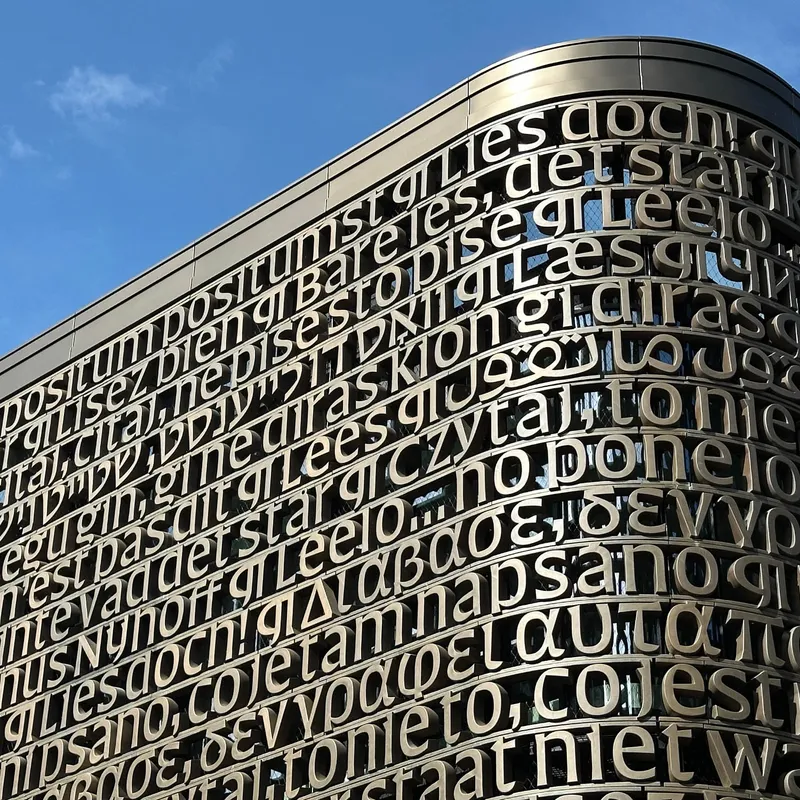
Lettering for the UvA Library
Lettering:
Architectural typography covering the front of the library building. Six different writing systems, over a kilometer of text.
Team: LettError, with Danilova (Cyrillic), Eslami (Arabic), Grumer (Hebrew), Samuļenkova (Greek).
Client: University of Amsterdam and MVSA Architects
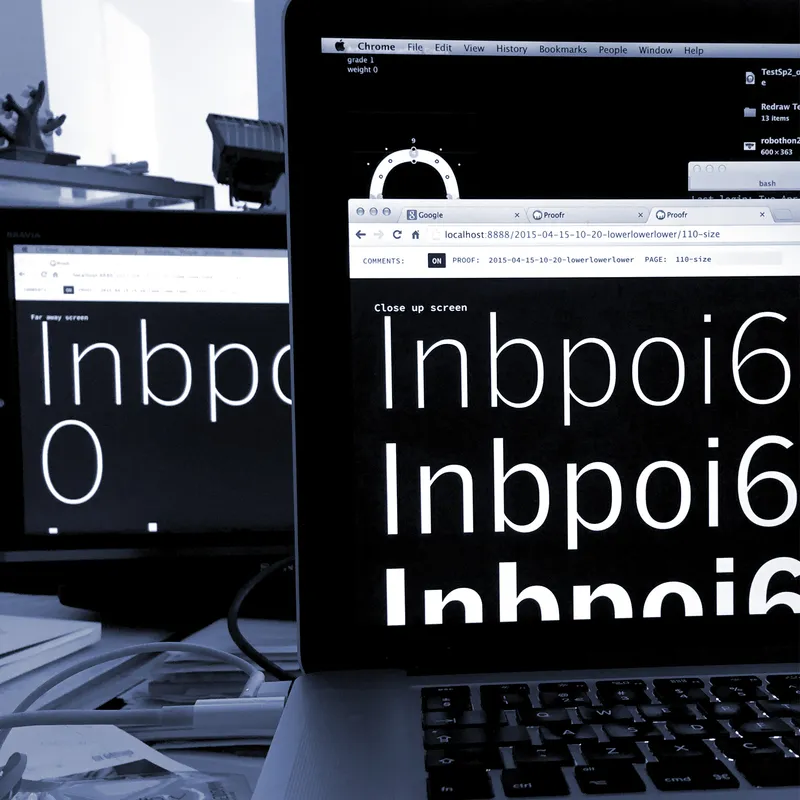
Street: a typeface for HBO
Custom typeface:
A compact grotesk, drawn for all screens. With support for extended Latin, Greek and Cyrillic.
Team: Carvalho Bernau, LettError (both for Latin), Irene Vlachou (Greek), Ilya Ruderman (Cyrillic)
Client: Home Box Office, Rob McMurray, James Catel, Ryan Wilkerson, Dave Curry
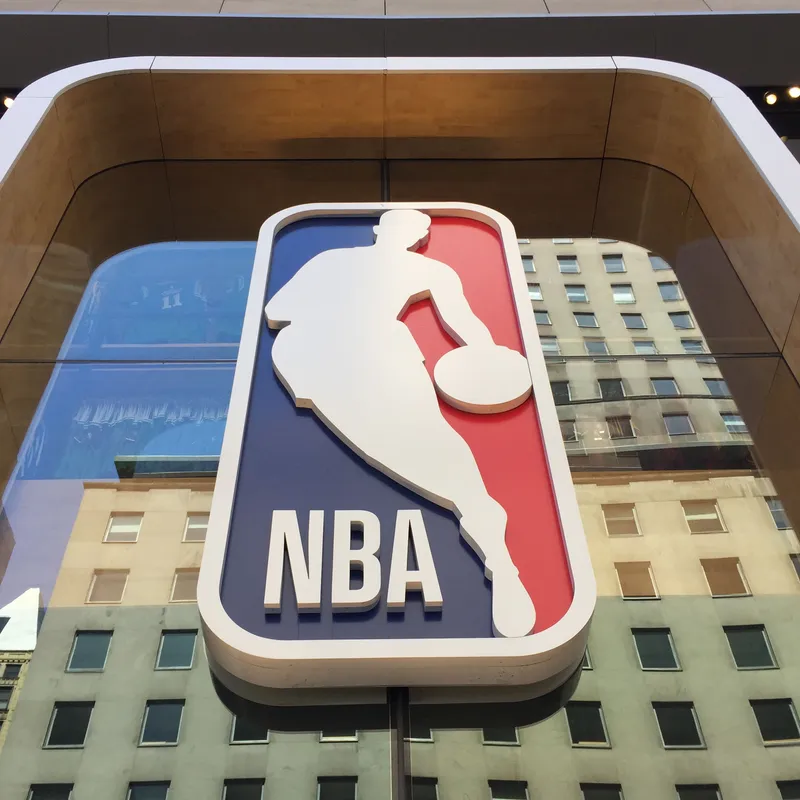
Branding typeface for NBA
Custom typeface:
Special cut of Action Condensed for logo, branding and merchandise. Part of the NBA redesign by OCD.
Client: National Basketball Association, Original Champions of Design, Commercial Type
RijksSans by Peter Verheul
Typeface:
Variable fonts and updates for RijksSans, the typeface used by all branches of the Dutch government.
Team: Type design by Peter Verheul, LettError: proofing, testing, presentations.
Client: Dutch Government design agency